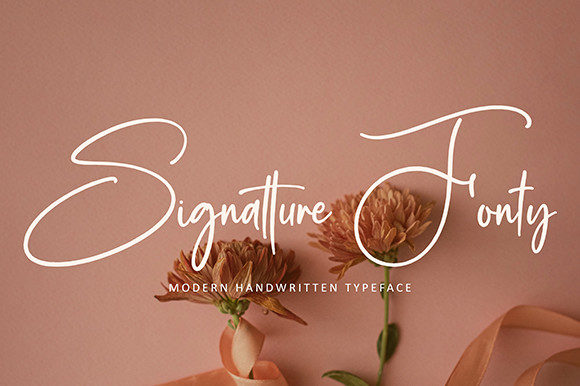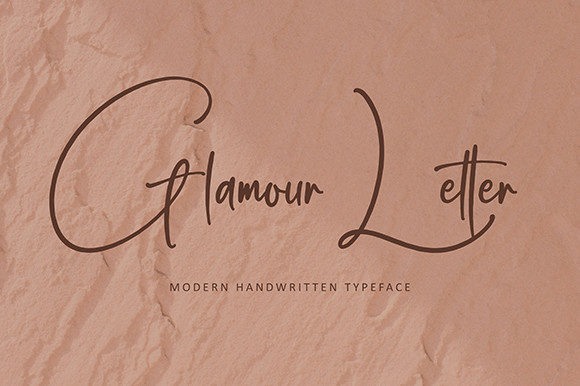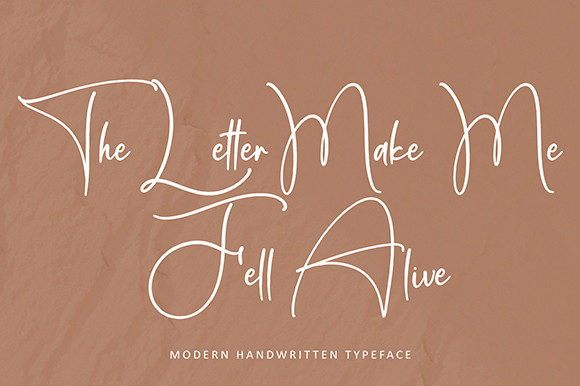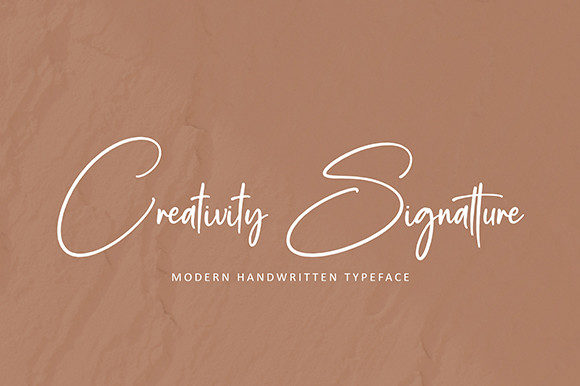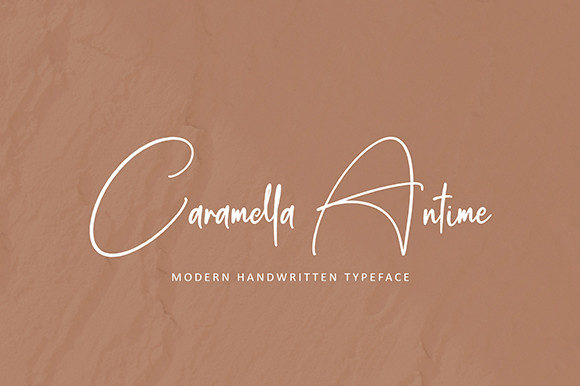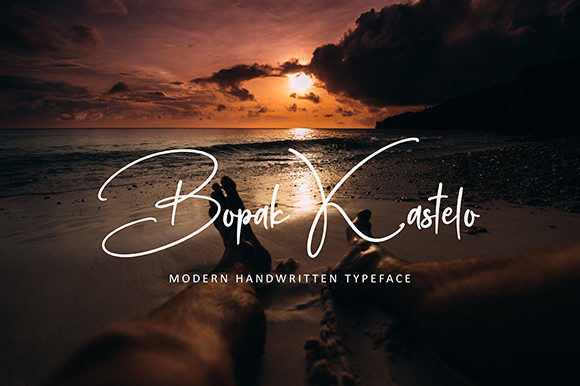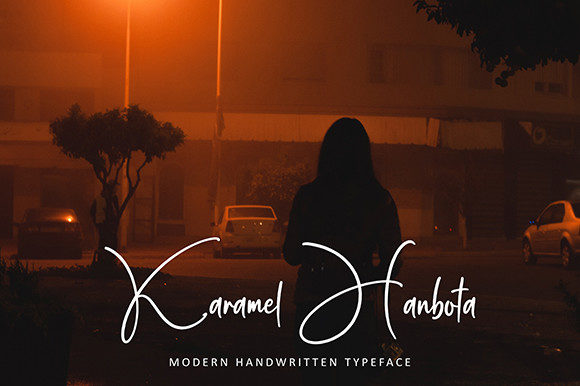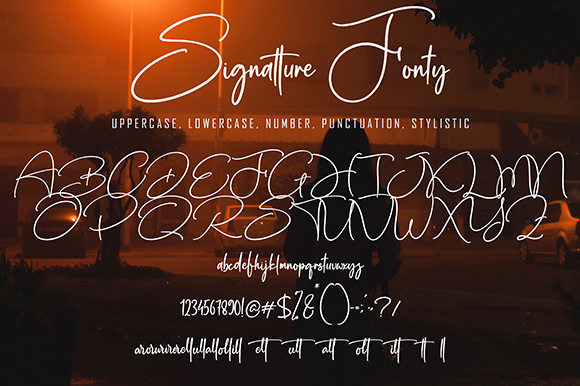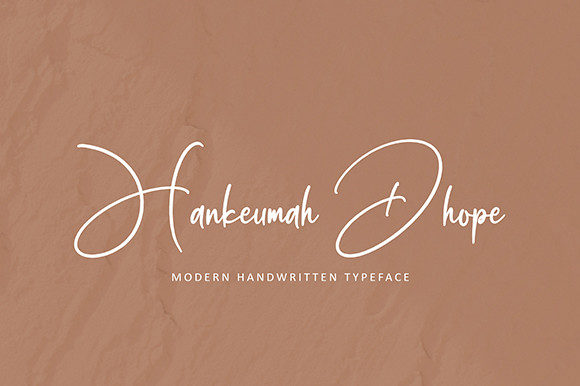
Signatture Fonty Font
About Signatture Fonty Font
Introducing “Signatture Fonty,” a beautiful and refined script font that exudes class, elegance, and a modern aesthetic. Crafted with precision, this font is versatile and suitable for a wide range of applications, including logos, branding, invitations, stationery, wedding designs, social media posts, and much more.
Signatture Fonty stands out with its sophisticated and elegant appearance, making it an ideal choice for projects that demand a touch of class. Whether applied to a logo, creating a brand identity, or enhancing wedding designs, this font adds a sense of refinement and modernity to your creations.
Picture Signatture Fonty gracing invitations, setting the tone for a classy and memorable event. Envision it becoming the signature element in your branding projects, adding a touch of elegance to your corporate identity. Its modern look ensures that it seamlessly integrates into various contexts, making it a valuable asset for designers aiming for a contemporary and refined aesthetic.
In essence, Signatture Fonty is not just a font; it’s a design statement that brings a beautiful and refined look to your projects. Its classy and elegant script is an invitation to infuse your designs with a touch of modern sophistication. Choose Signatture Fonty to elevate your work and let it exude elegance and class across logos, branding, invitations, and any creative endeavor that seeks a beautiful and refined aesthetic.